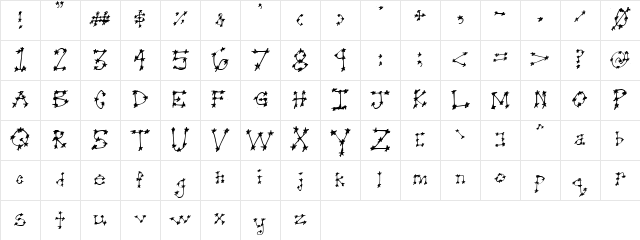
Starry-Eyed Teen Crush Regular
Designer: Jennifer Heinicke, Fonts-A-Go-Go, ophelia@southwind, <http://www2.southwind.net/~ophelia/index.html>
Design Context for Starry-Eyed Teen Crush
Starry-Eyed Teen Crush is a composed and adaptable typeface that performs quietly and consistently across a wide range of design contexts.
Who designed the Starry-Eyed Teen Crush Regular font?
This font was published by Jennifer Heinicke, Fonts-A-Go-Go, ophelia@southwind, &lt;http://www2.southwind.net/~ophelia/index.html&gt;. Check the technical specs section for copyright and designer details.